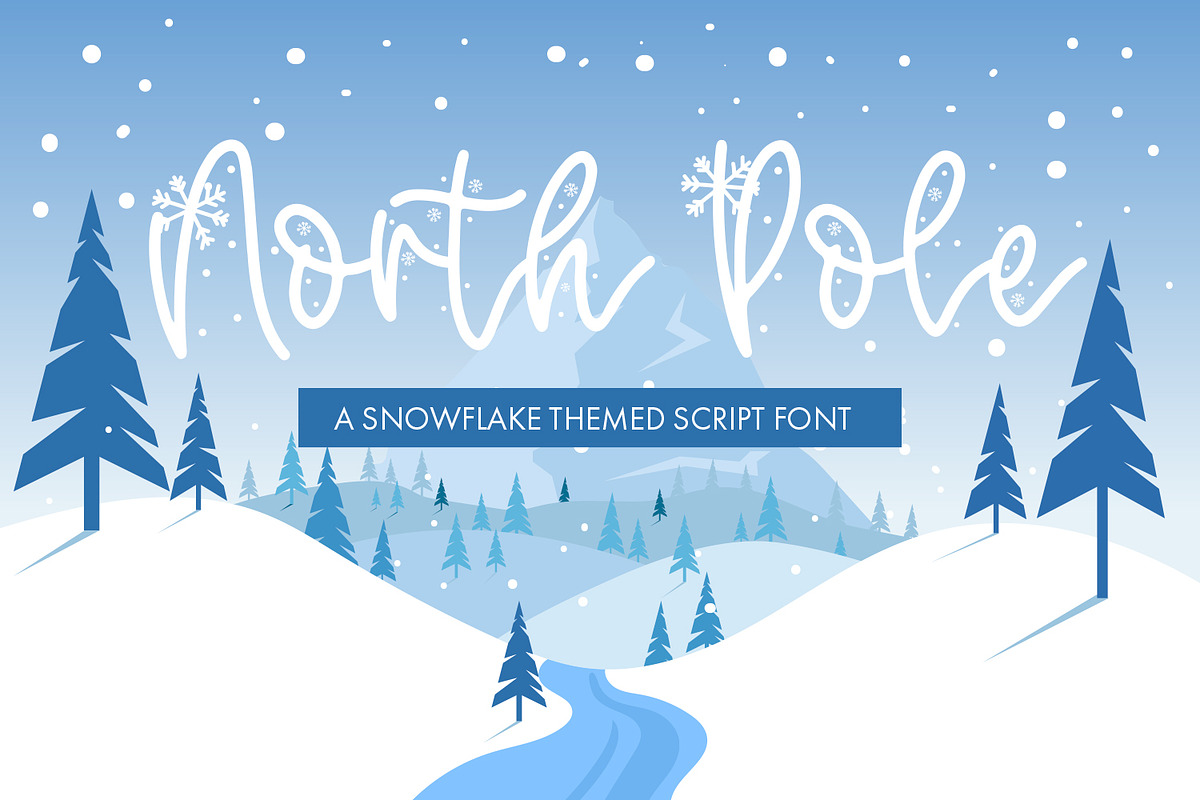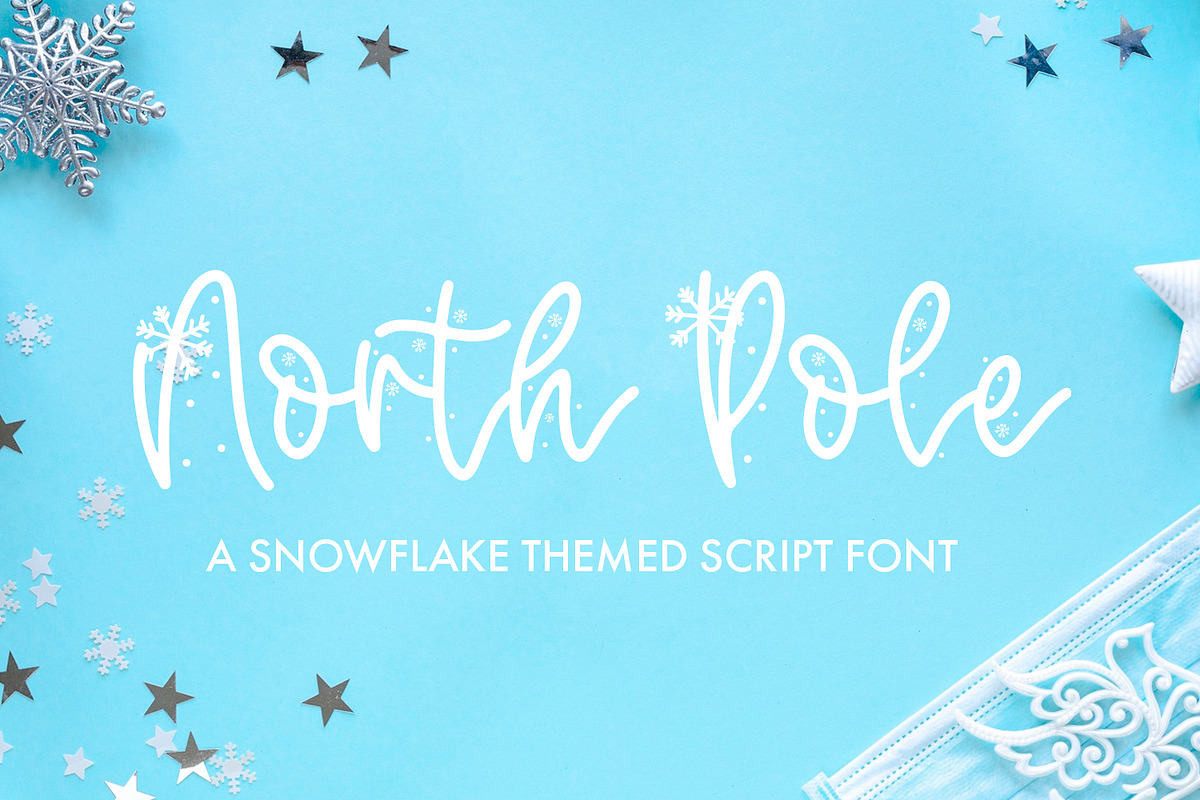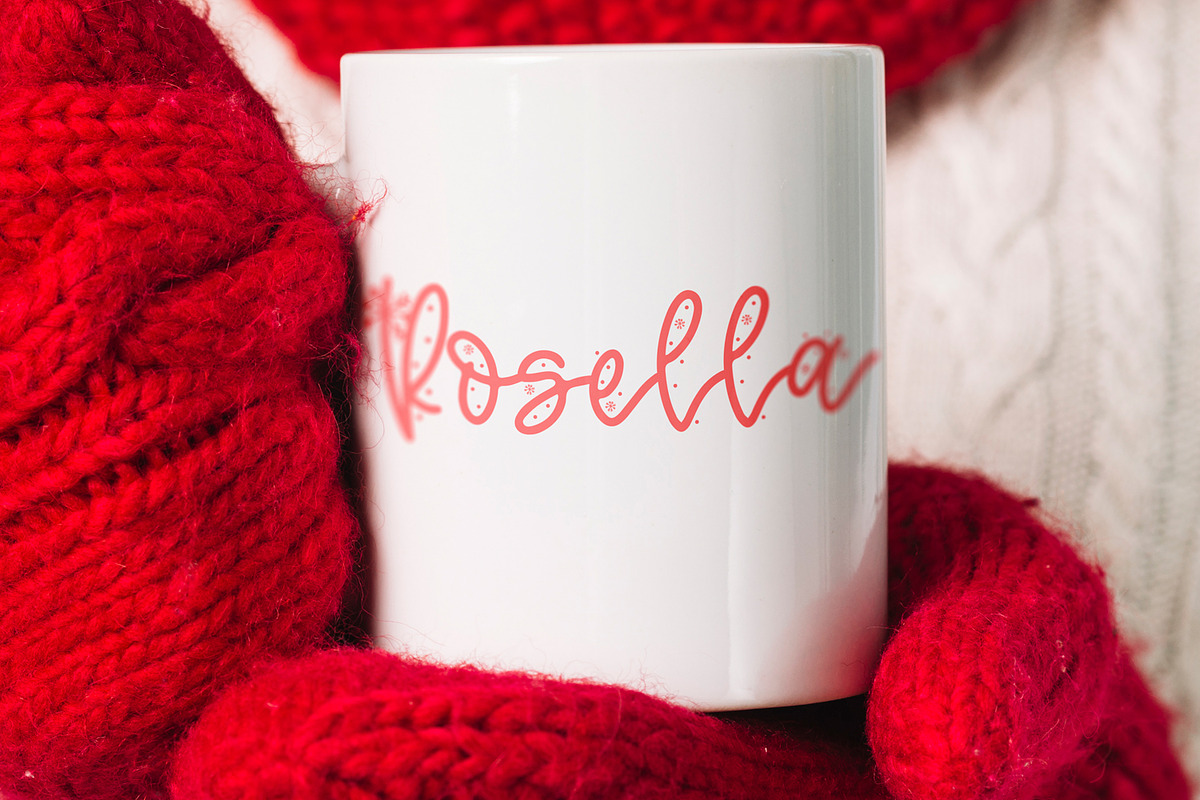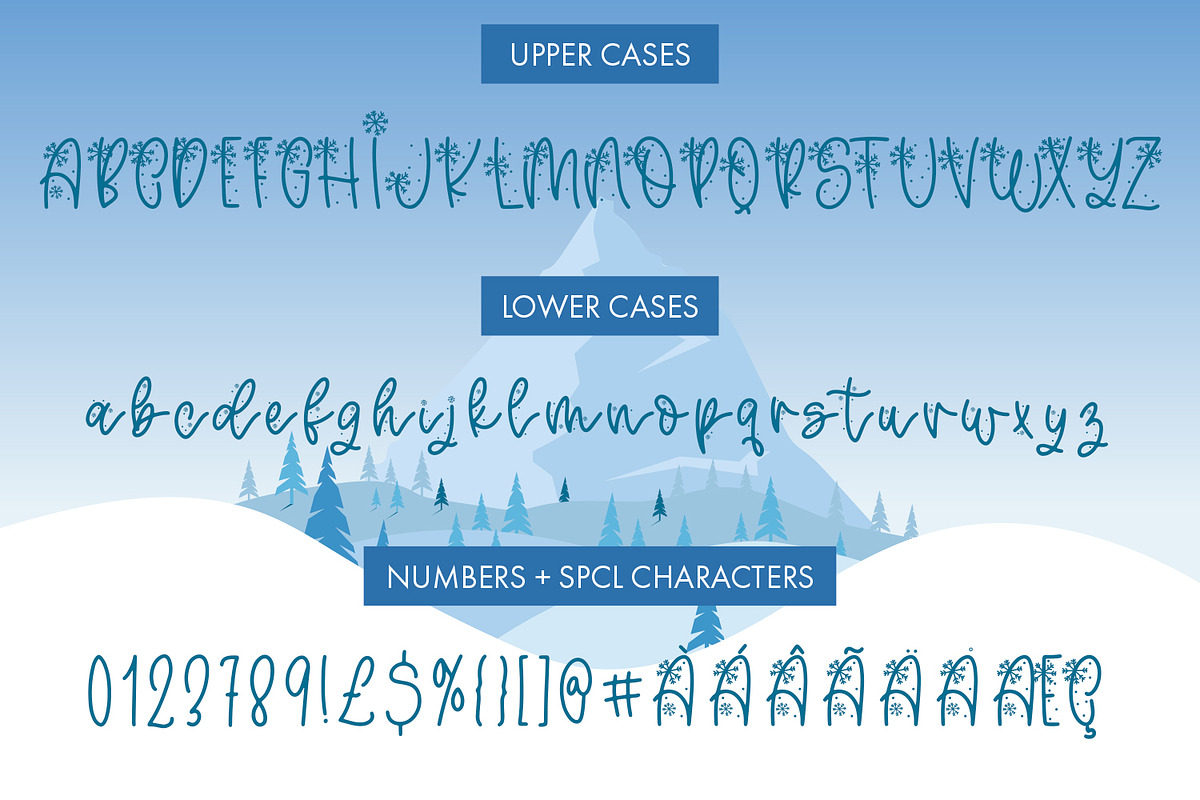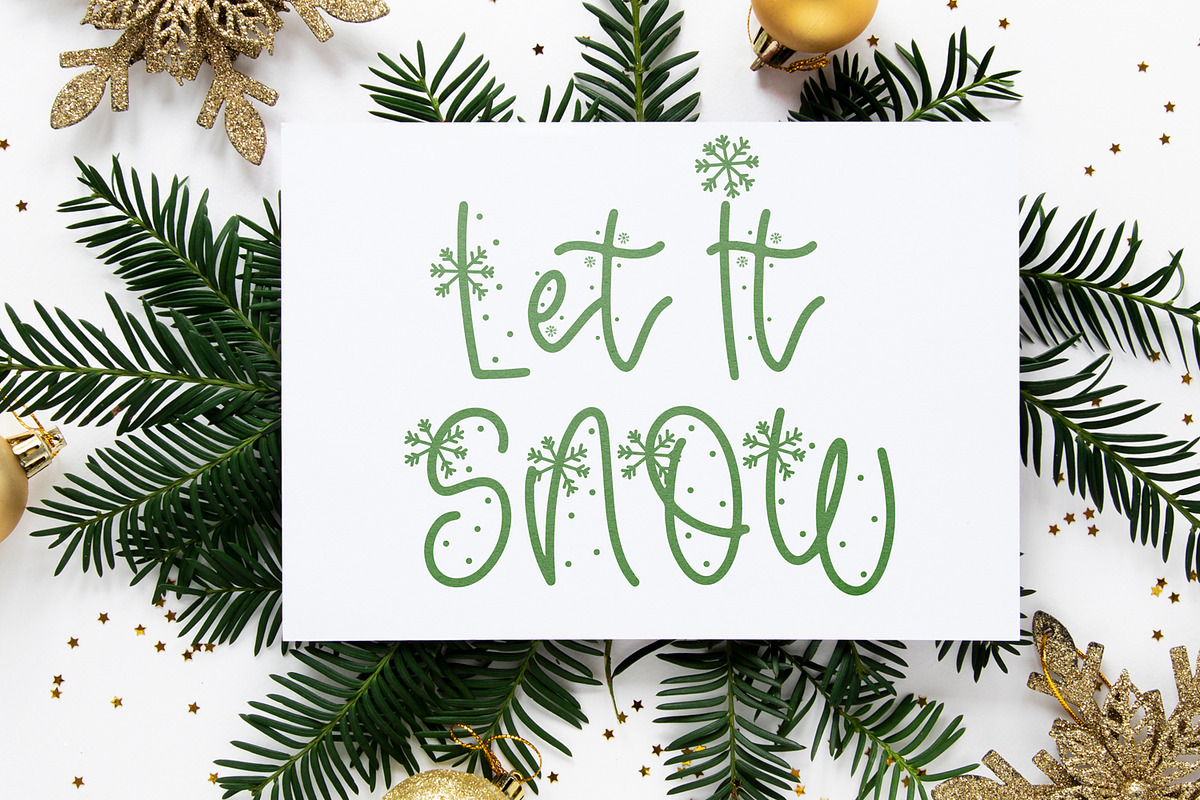
North Pole - A Snowflake Font
Embrace the cozy charm of 'North Pole,' a handwritten monoline script font adorned with delicate snowflakes. ❄️✍️ This typeface captures the enchantment of winter, making it perfect for your holiday and seasonal projects. Let 'North Pole' add a touch of frosty elegance to your designs.
- North Pole - Comes with Uppercase A-Z and lowercase a-z letters, 0-9 numbers, stylistic alternates, limited punctuation and supports Western European Languages